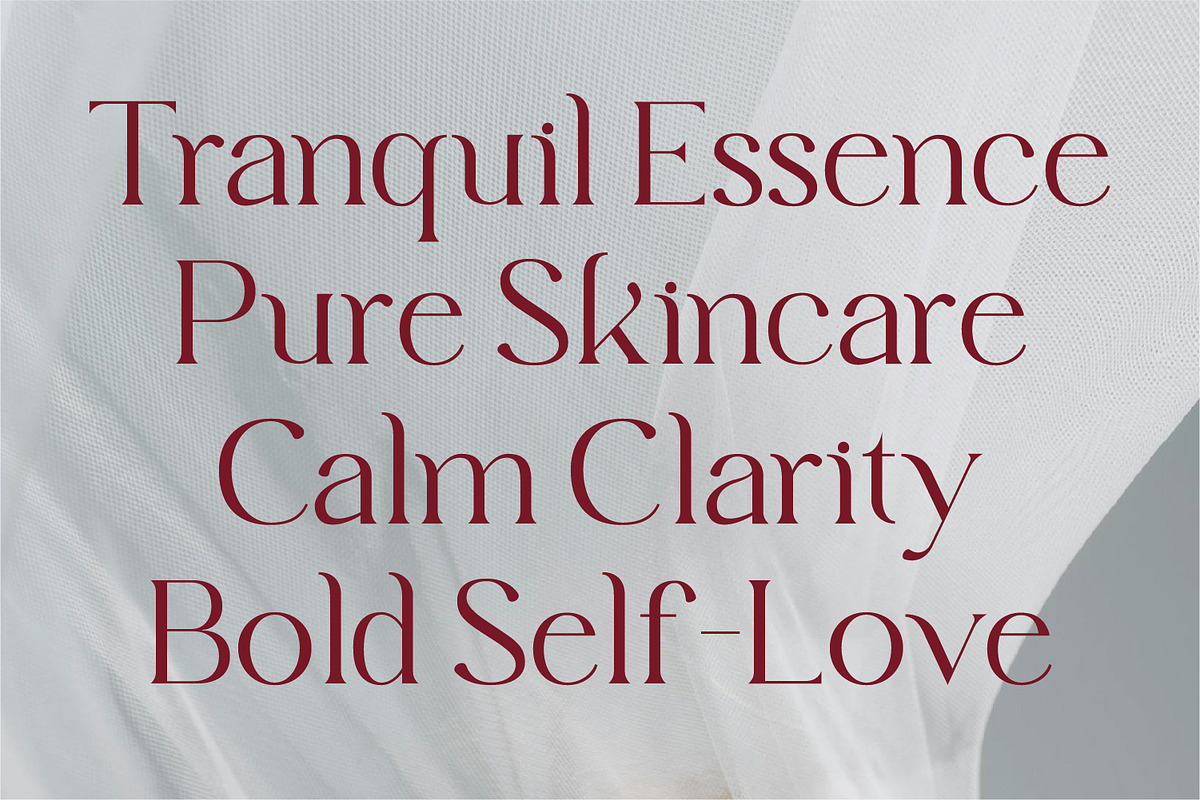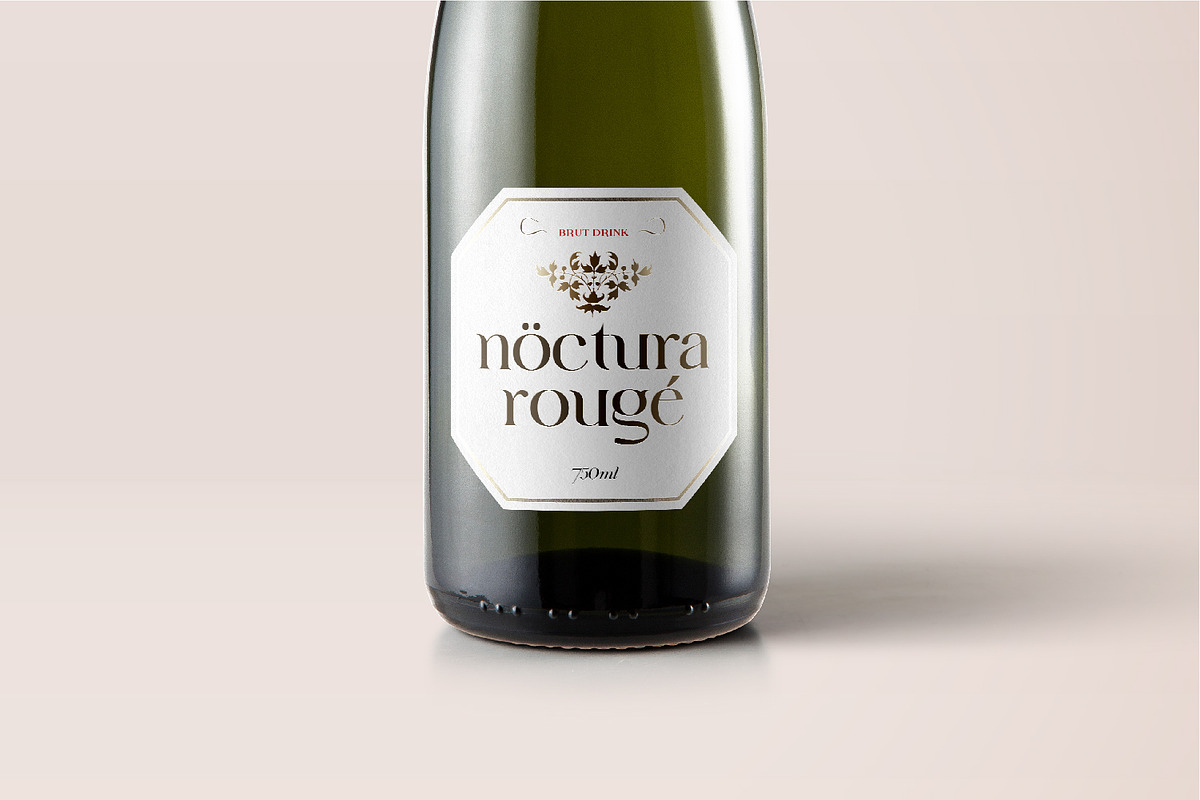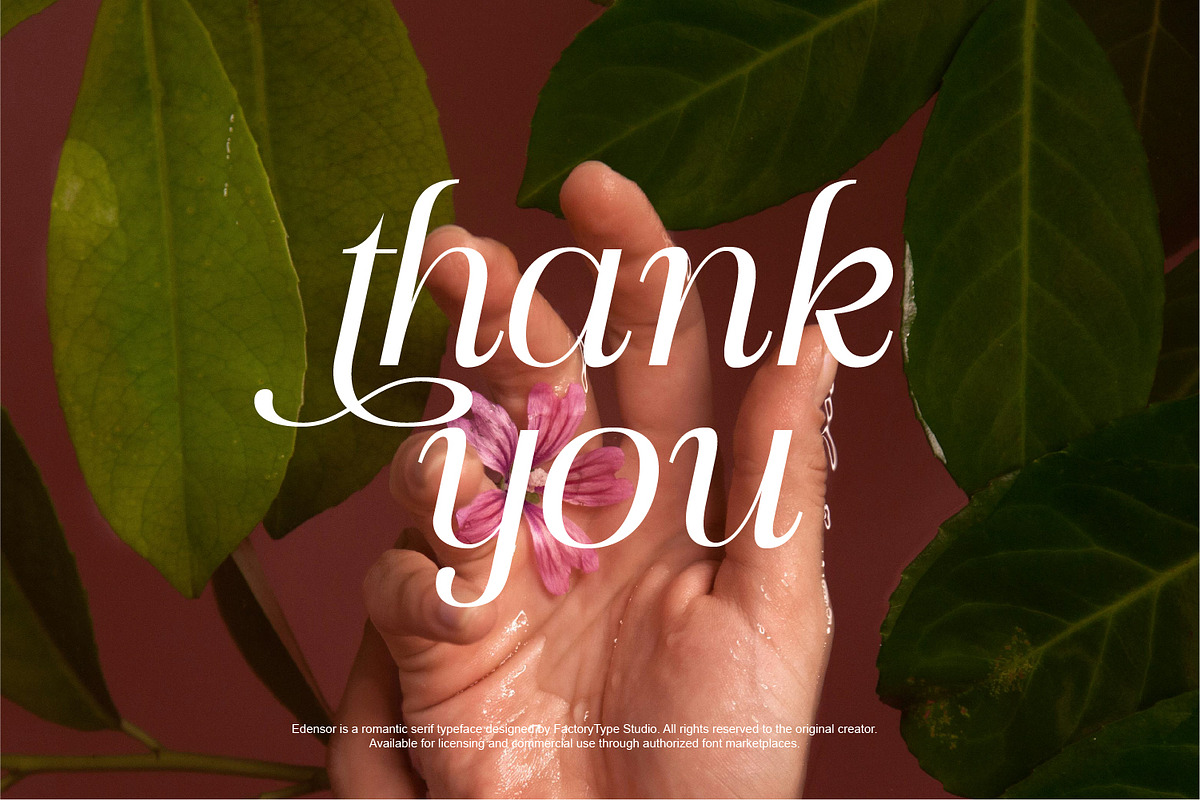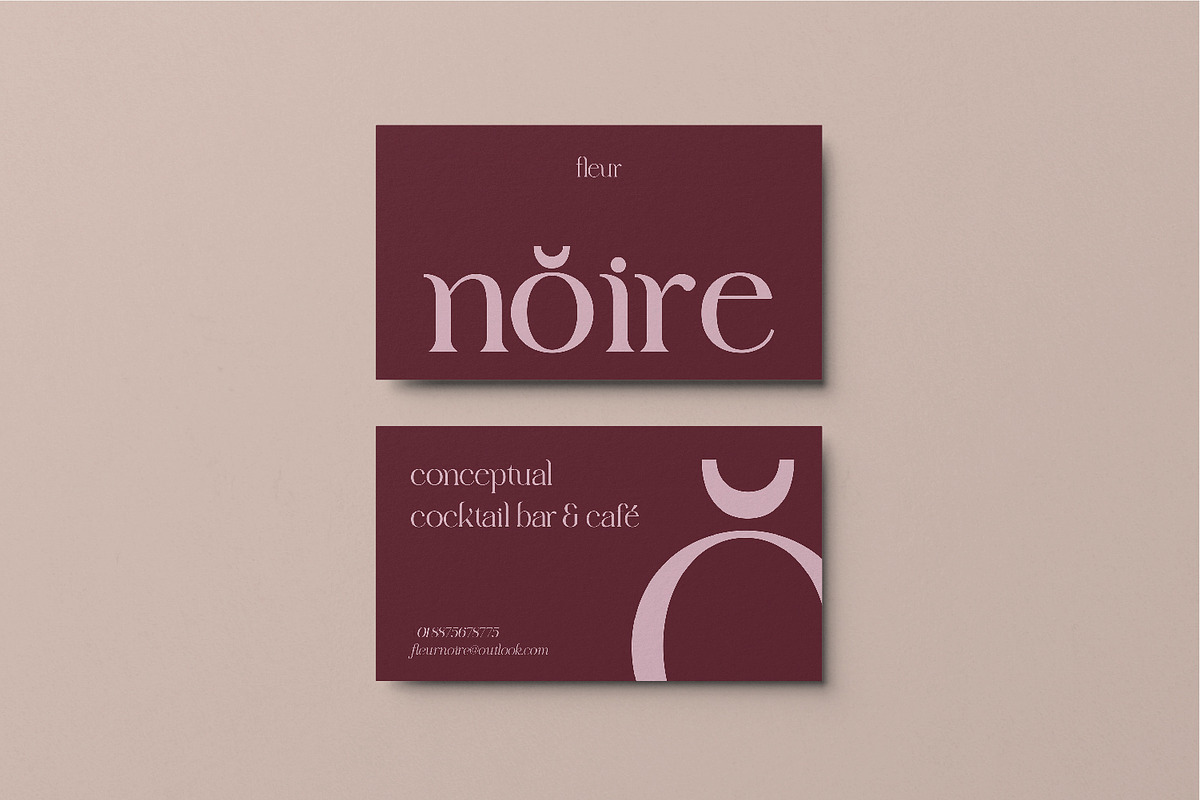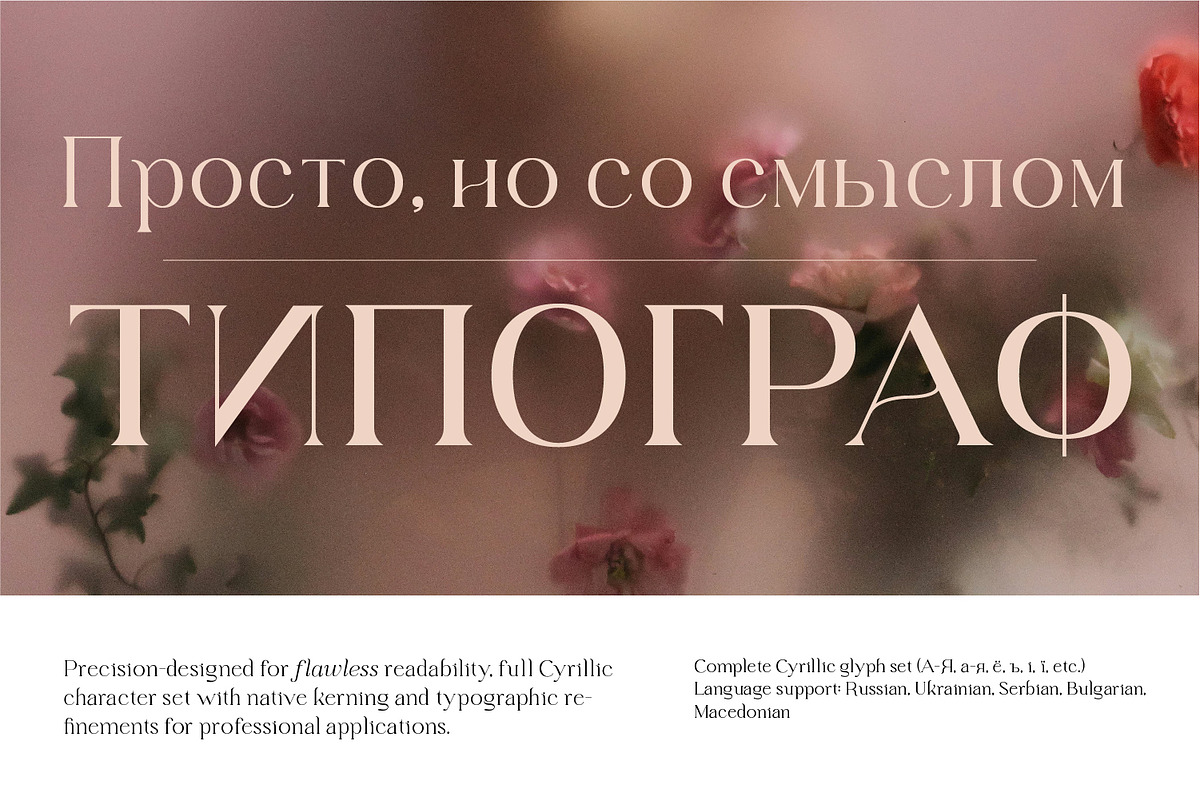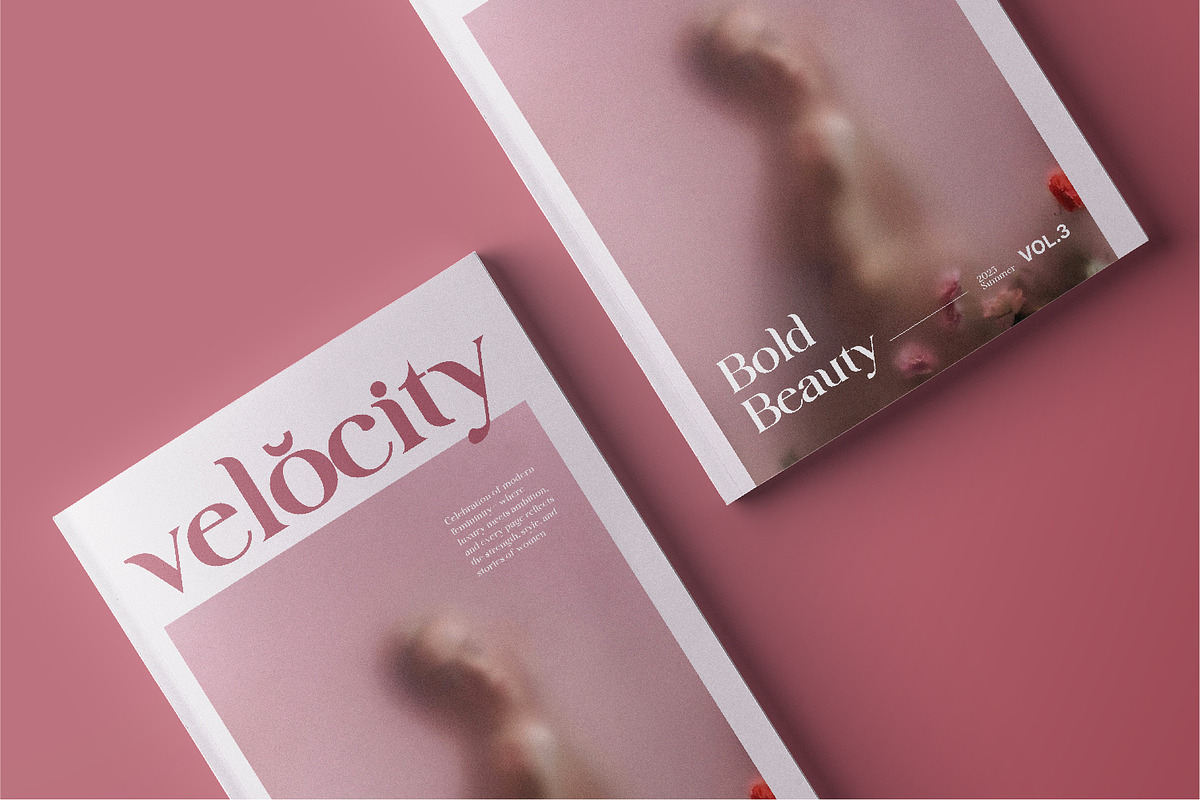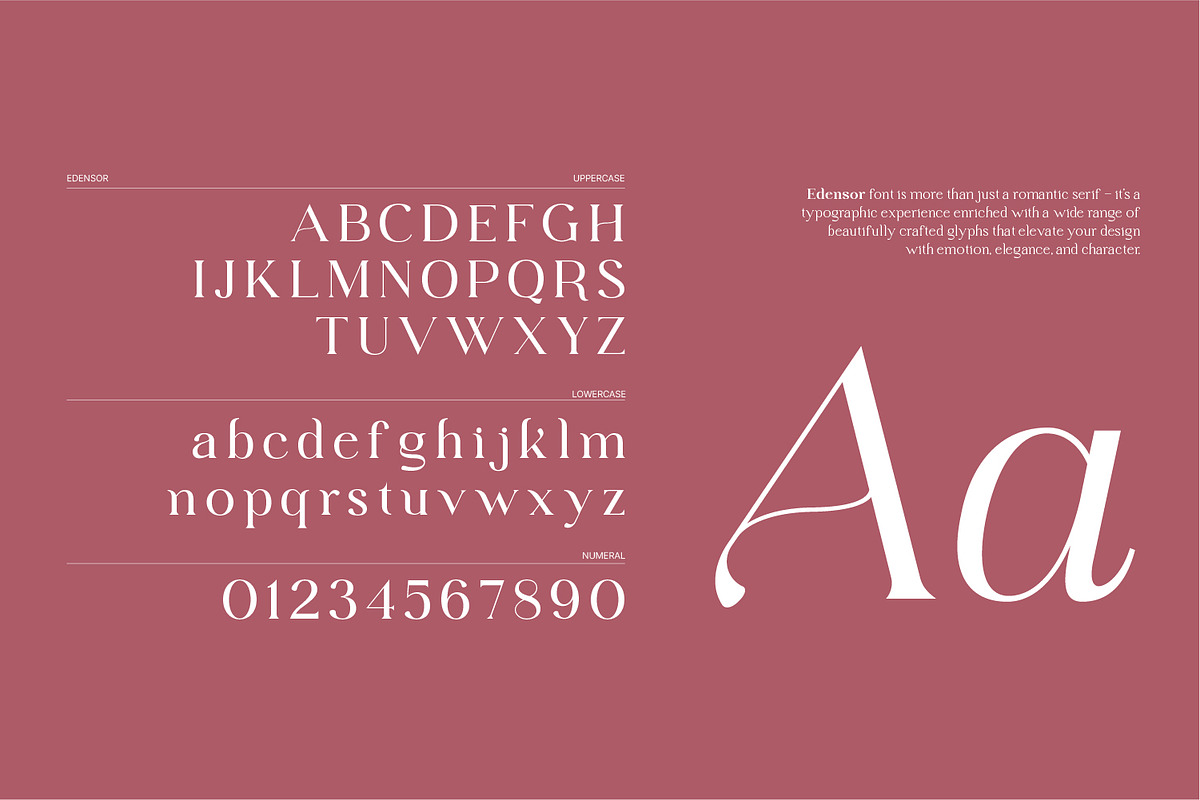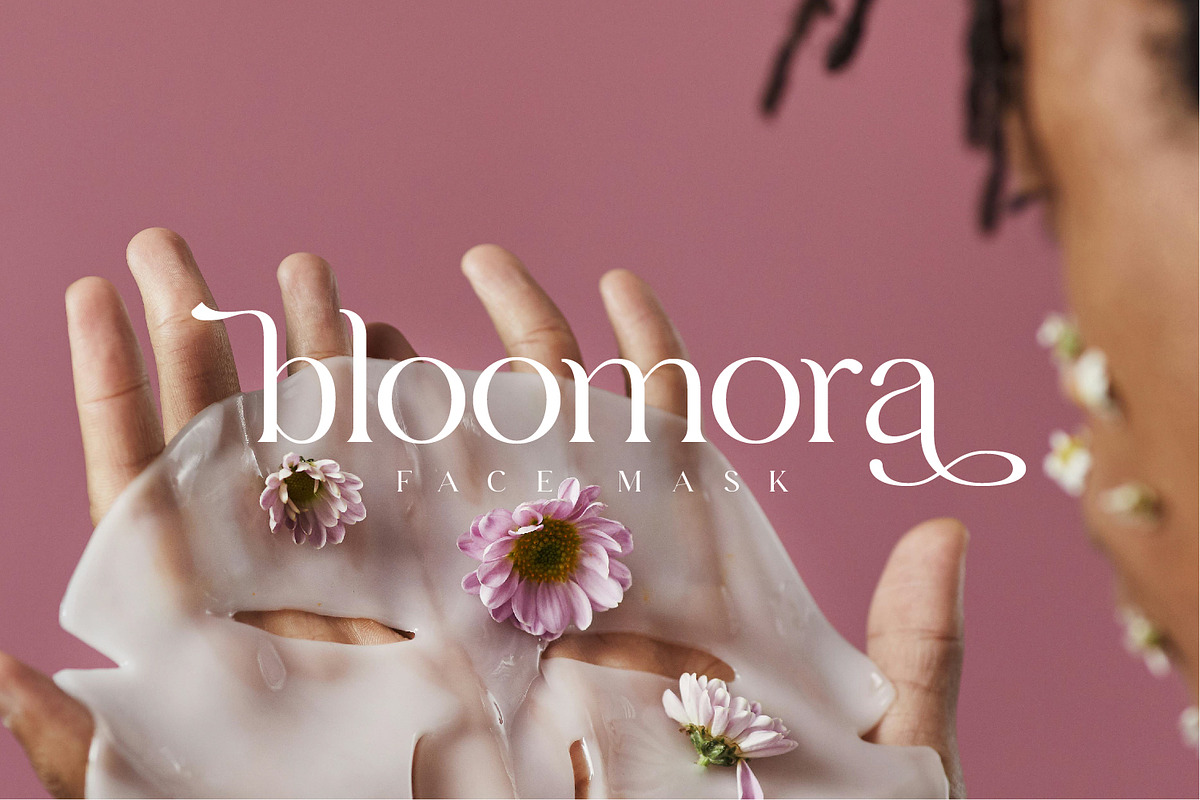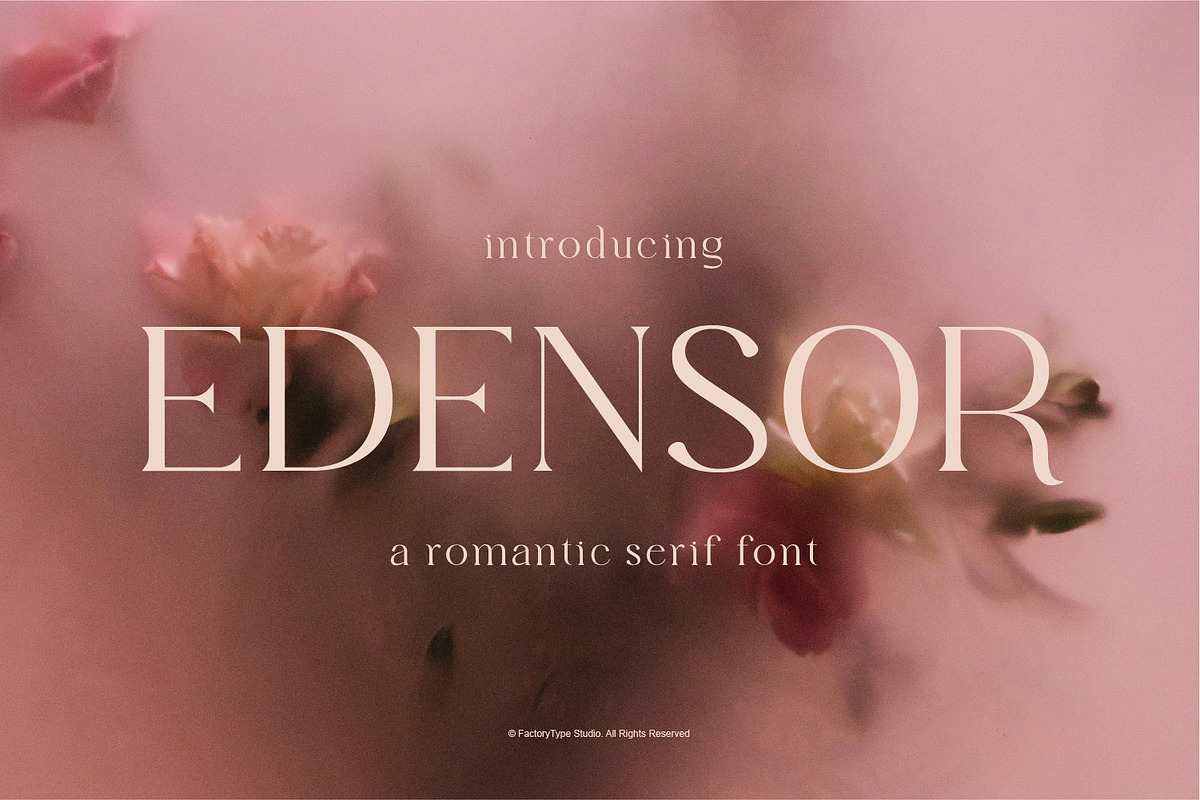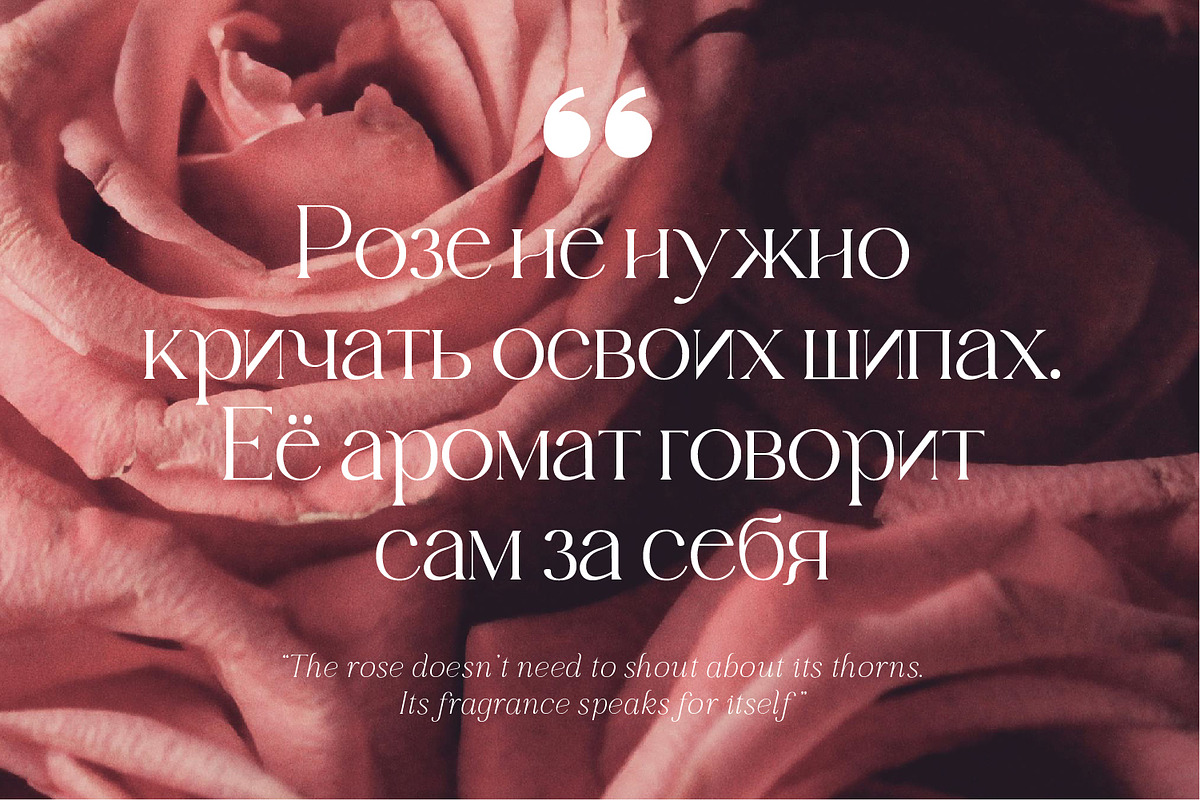
Edensor Pro – Romantic Luxury Serif
Elevate your visual storytelling with Edensor Pro, a refined luxury serif typeface that masterfully blends timeless elegance with an expressive, romantic charm.
Inspired by the delicate balance of classic editorial design and organic beauty, Edensor Pro features graceful curves and a sophisticated silhouette. It is the ideal choice for luxury branding, fashion editorials, and intimate wedding stationery that requires a touch of lasting beauty.
Now evolved into a professional-grade system, Edensor Pro offers an expansive library of stylistic alternates and ligatures. This complete 18-style family brings a warm, polished energy to every project, providing the versatility required for both premium print and boutique digital experiences.
FEATURES & DESIGN POSSIBILITIES
- Aesthetic Focus: Romantic editorial elegance, optimized for beauty and fashion identities.
- 18 Total Styles: 9 weights with matching, graceful Italics.
- Professional Character Set: 1,158 glyphs including stylistic alternates and custom ligatures.
- Best For: Logo design, magazine mastheads, packaging, and wedding invitations.